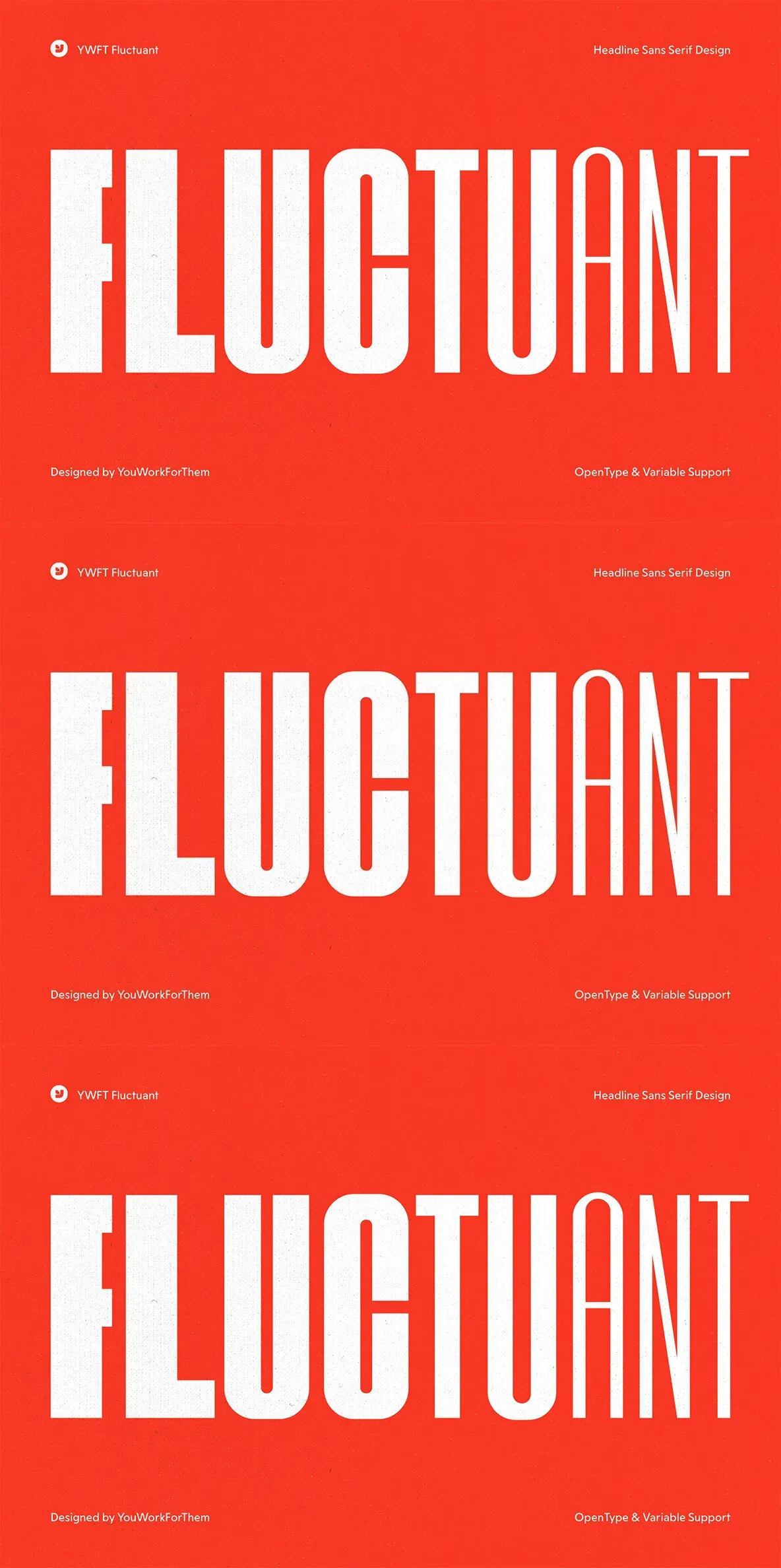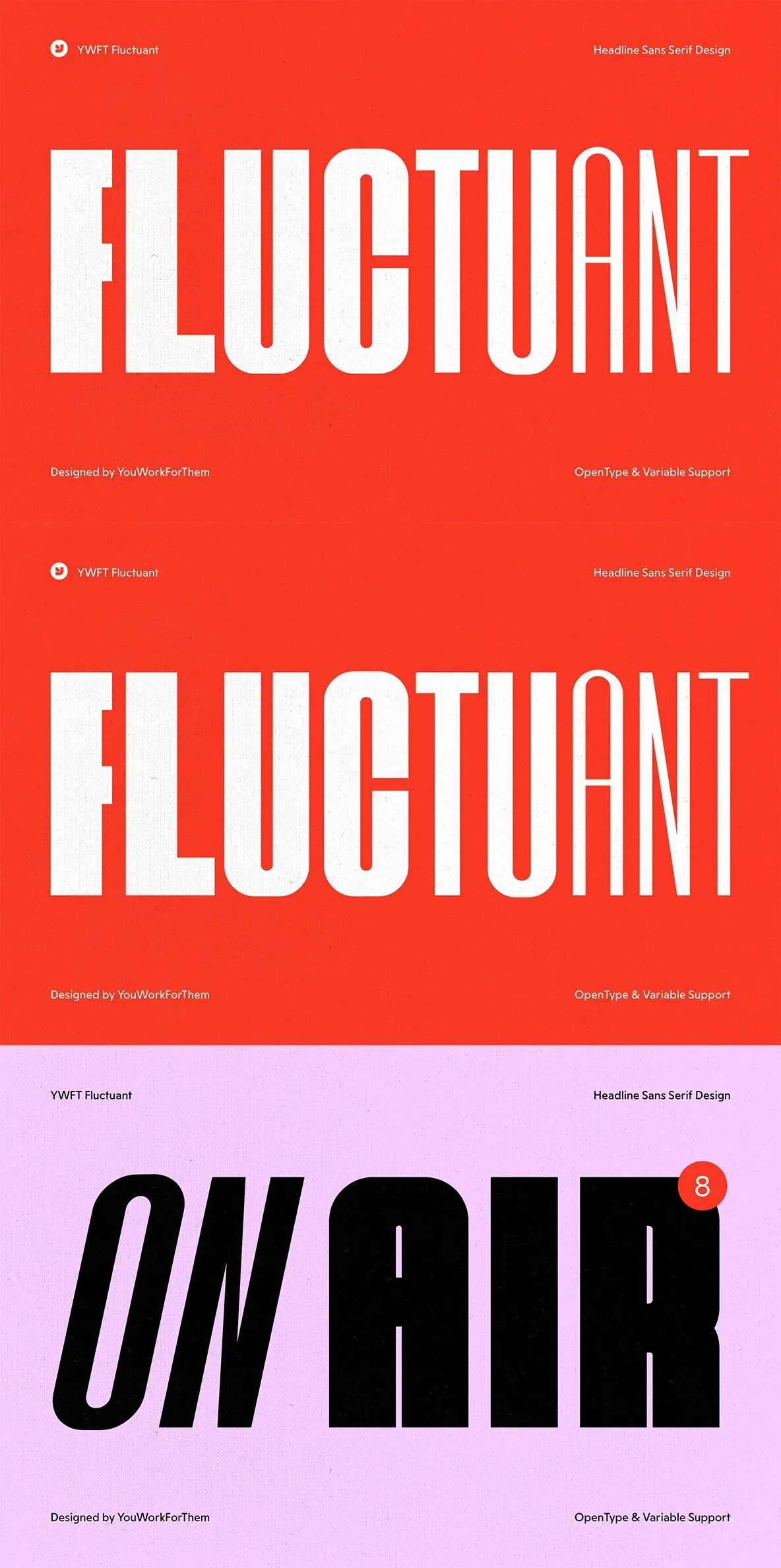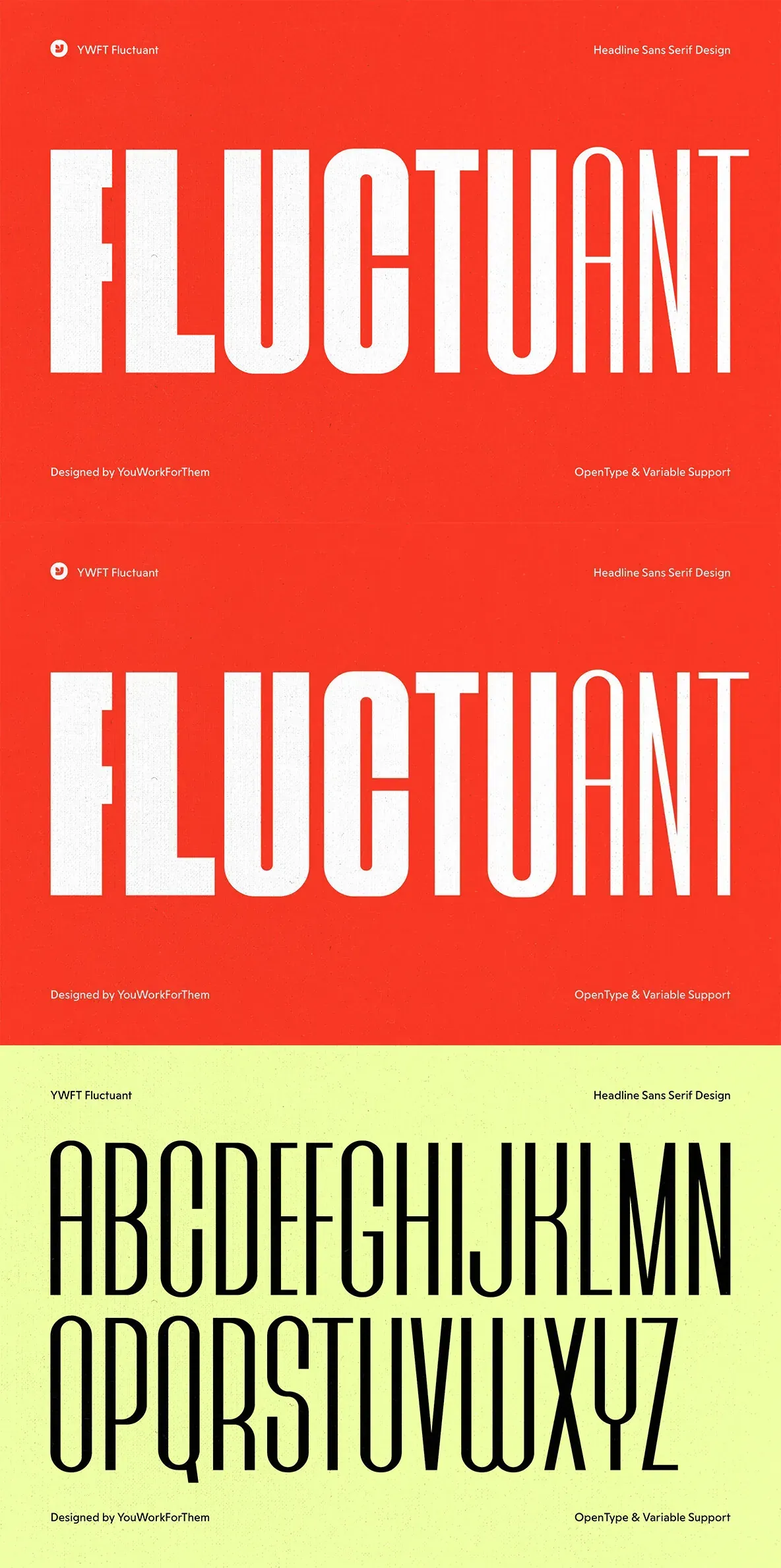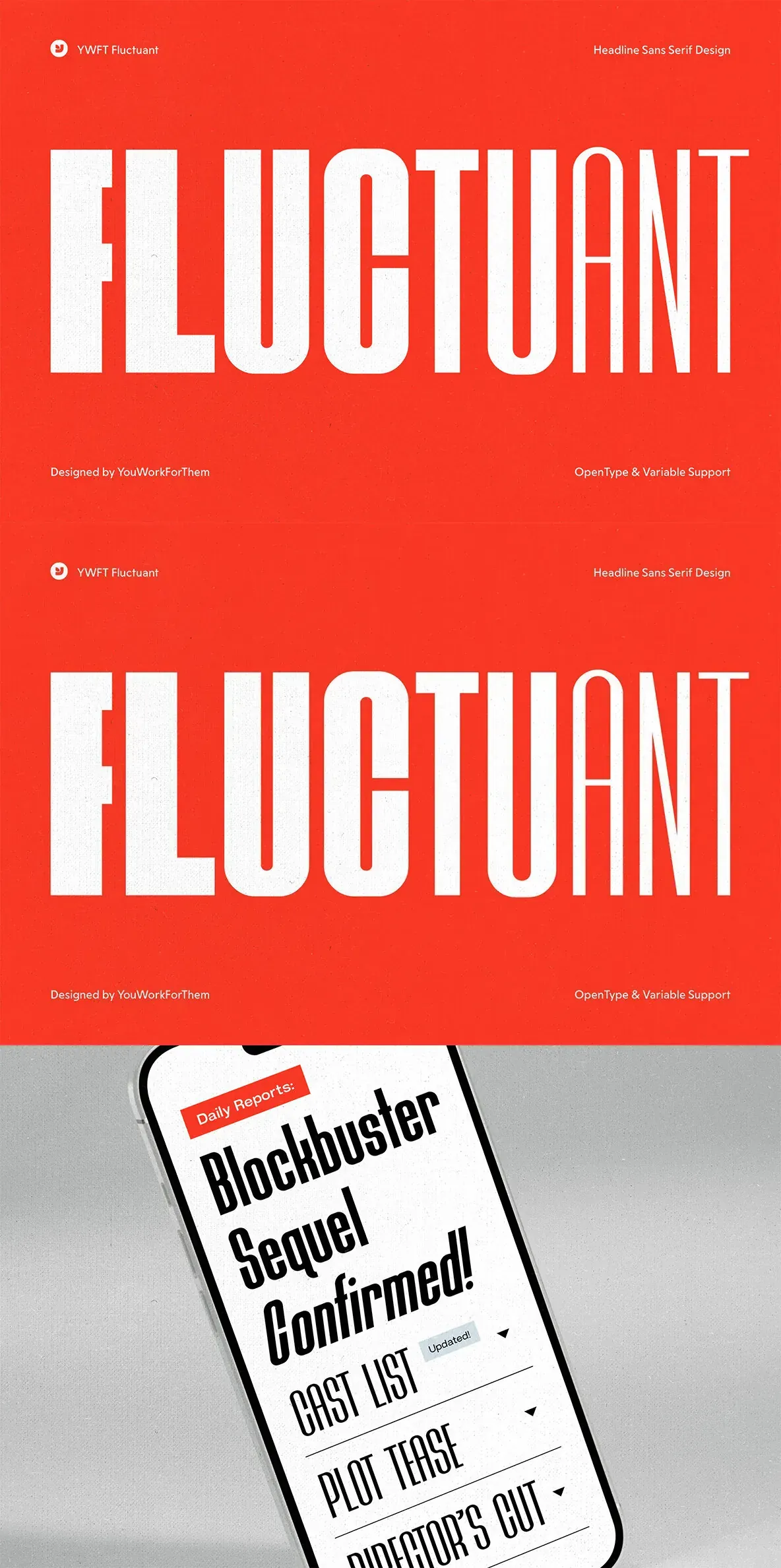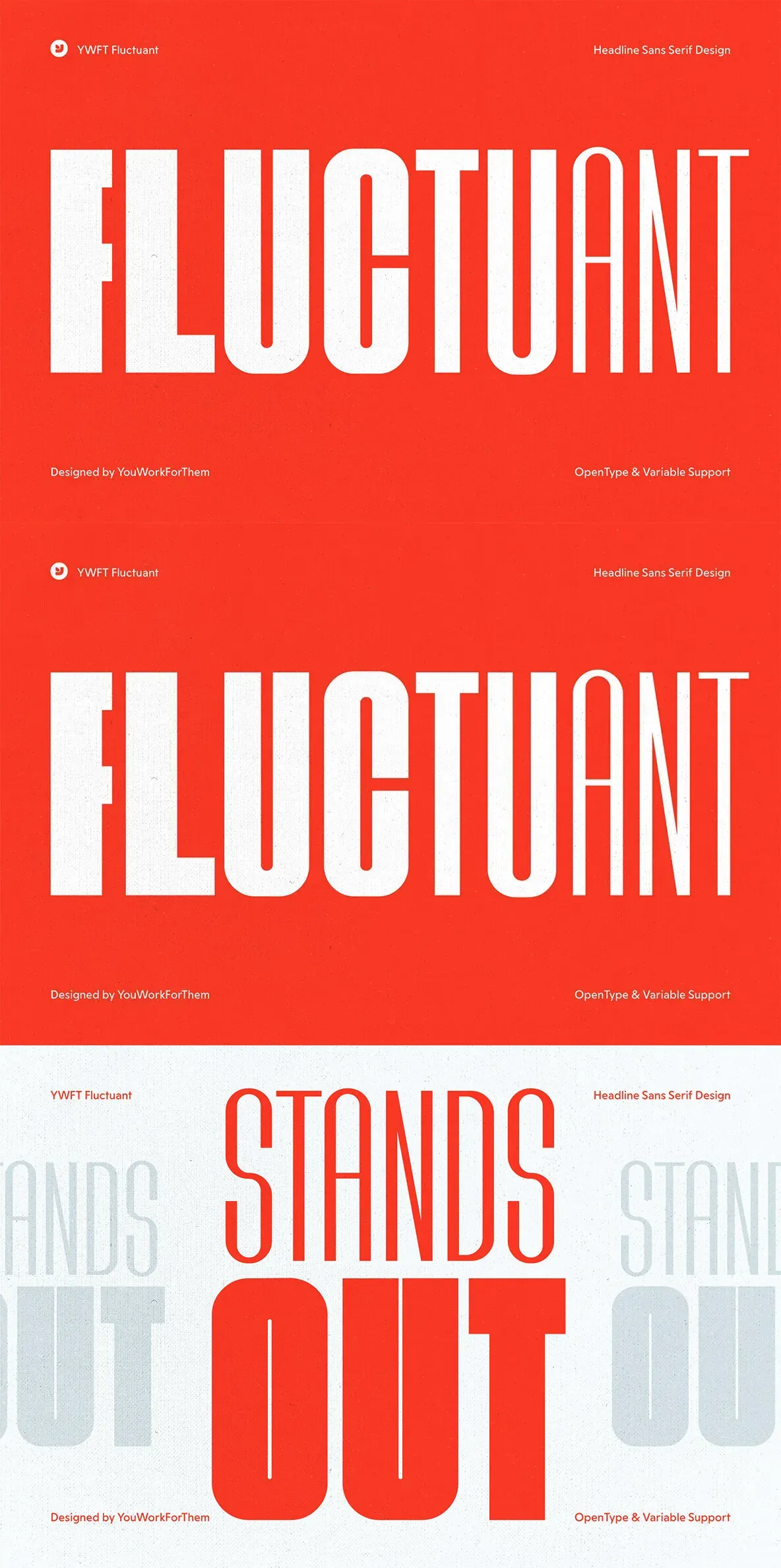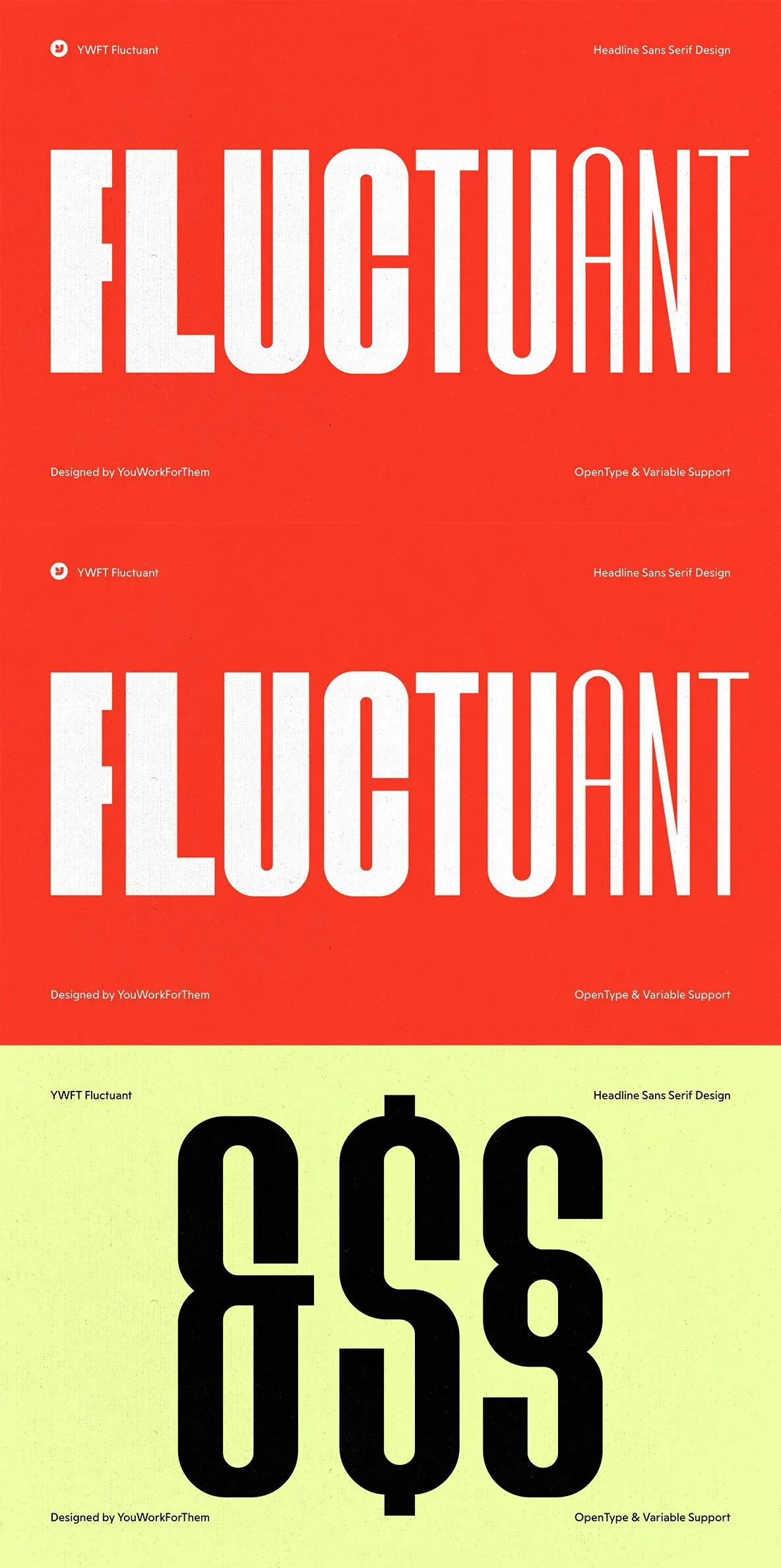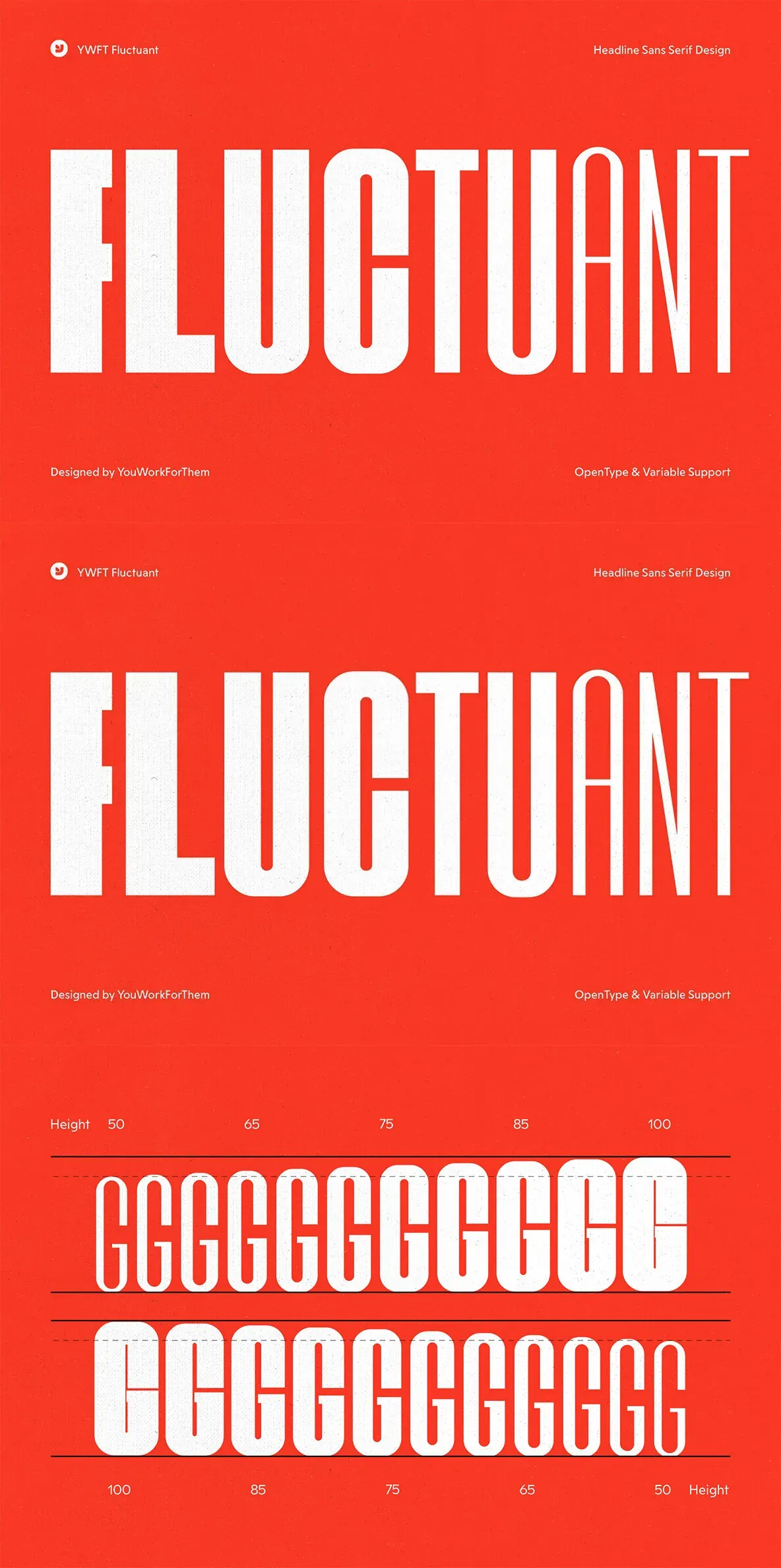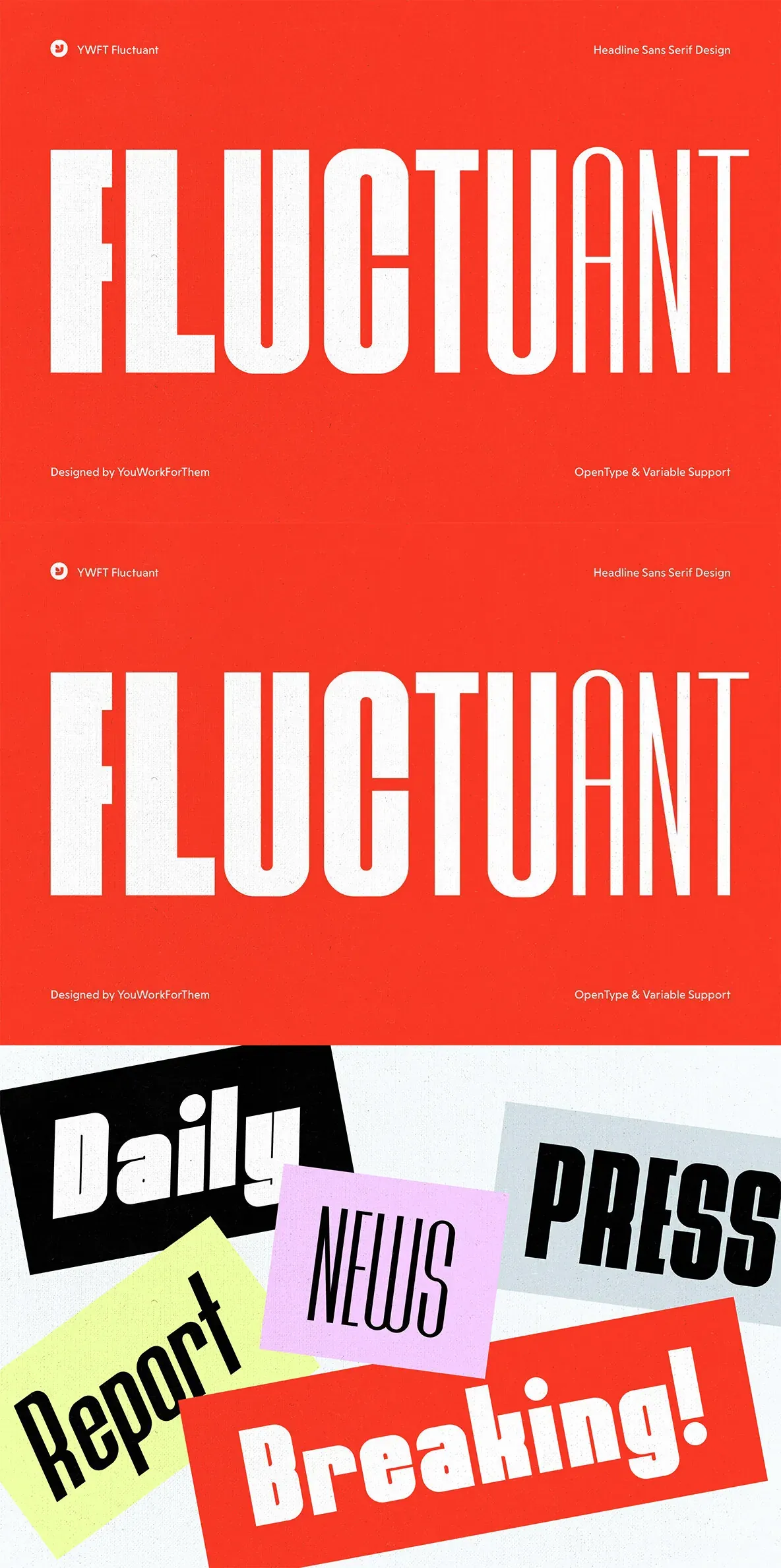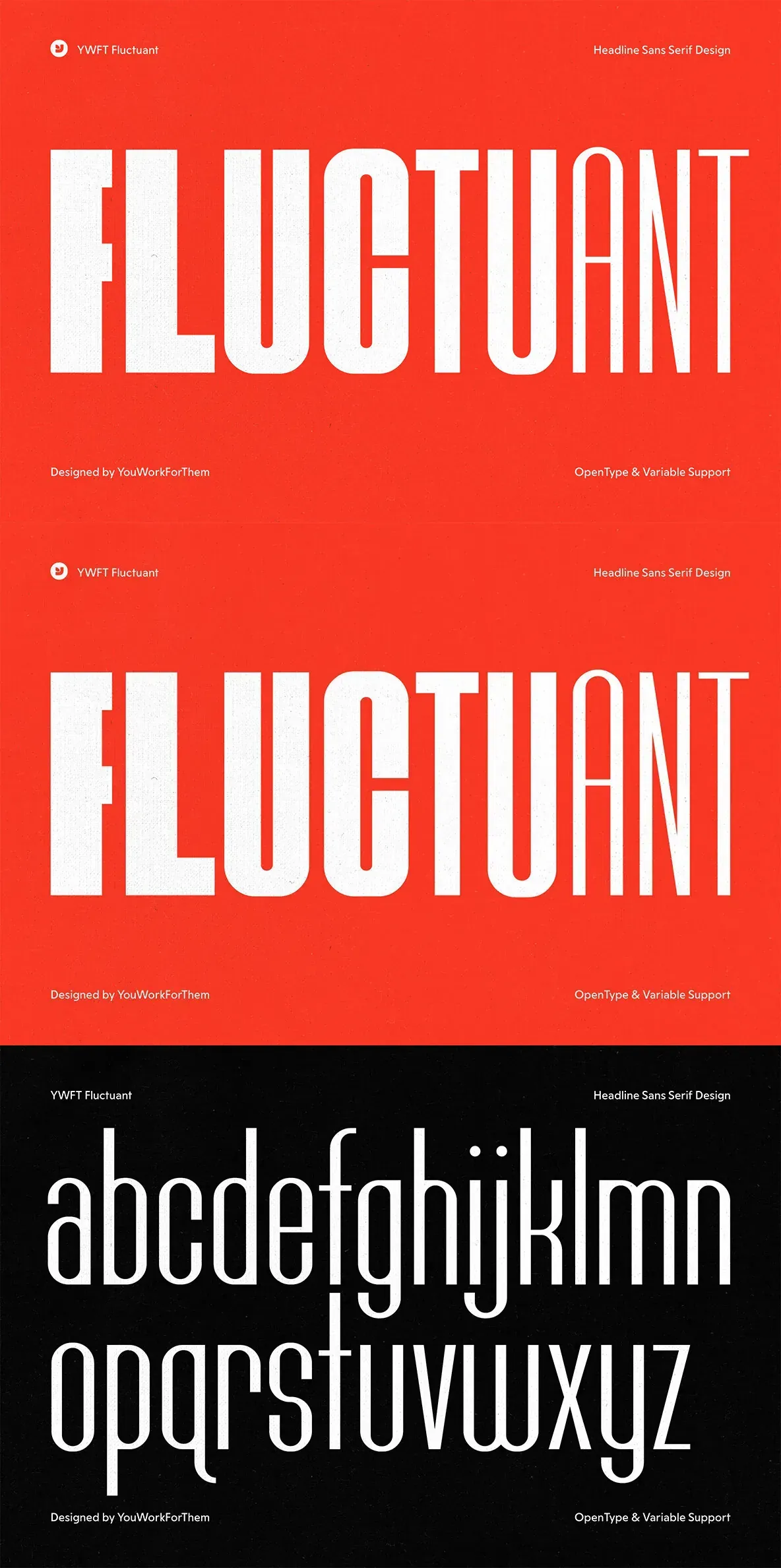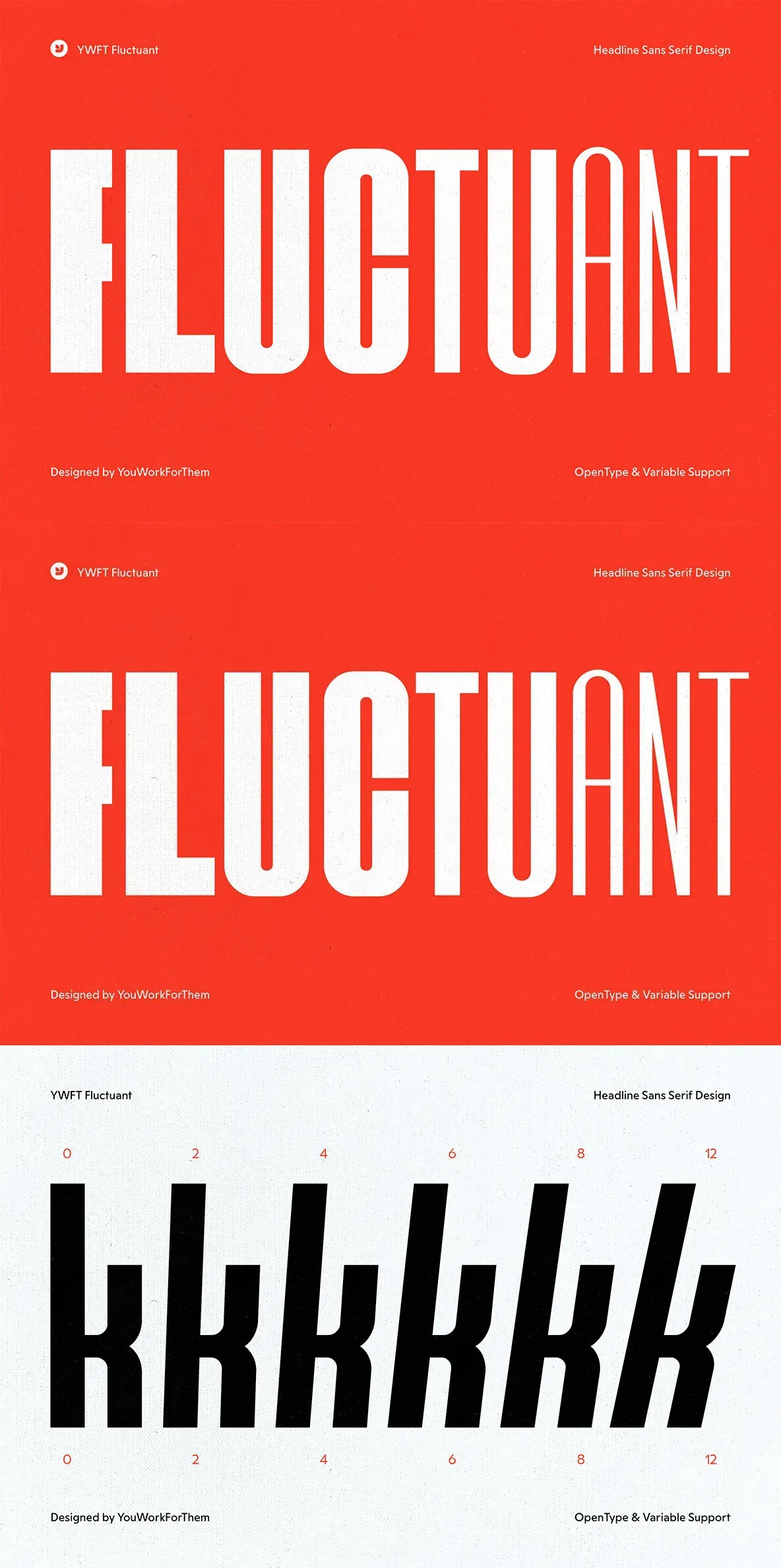
YWFT Fluctuant Font
When it comes to design versatility in typography, variable fonts are hard to beat. Just imagine being able to tweak a font’s height to fill a stretch of vertical space, or being able to lean the letters just so in order to create the perfect slant for your specific project.
As an extension to OpenType, variable fonts are sort of like having a bottomless grab-bag of fonts in a single font file. The designer is able to adjust attributes like width or height with the simple pull of a slider. This type of responsive design is breaking new ground every day, and we’re excited to release our own variable font, YWFT Fluctuant.
YWFT Fluctuant is a contemporary sans serif type design with a subtle retro flair. The beauty of this type design is that you can tweak it to your heart’s content – with total ease and absolute control.
YWFT Fluctuant is ideal for logos, branding and identity projects, displays, signage, flyers, headlines, labels, web copy, product packaging, posters, merchandise, menus, and more.